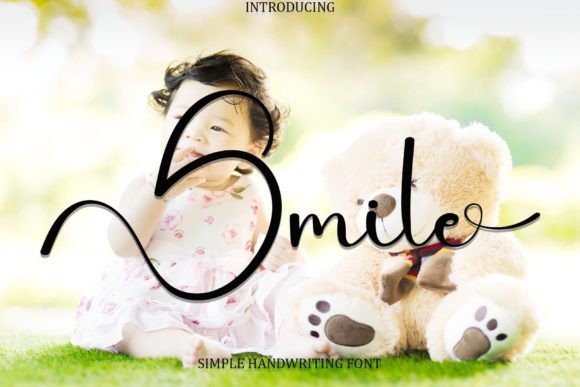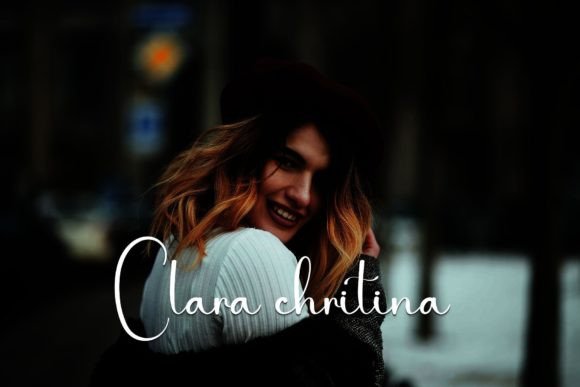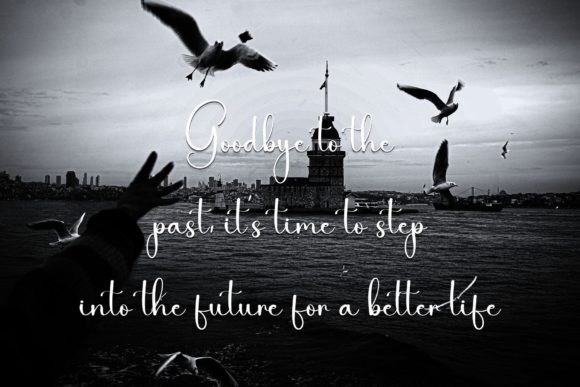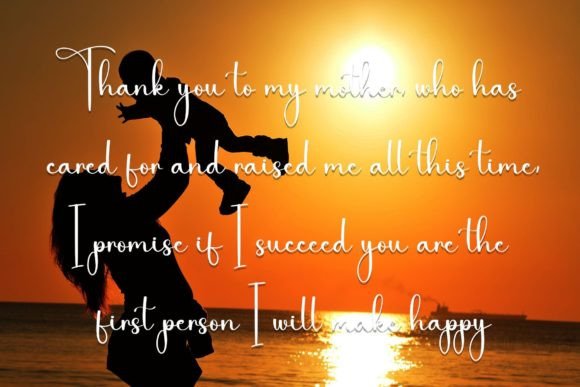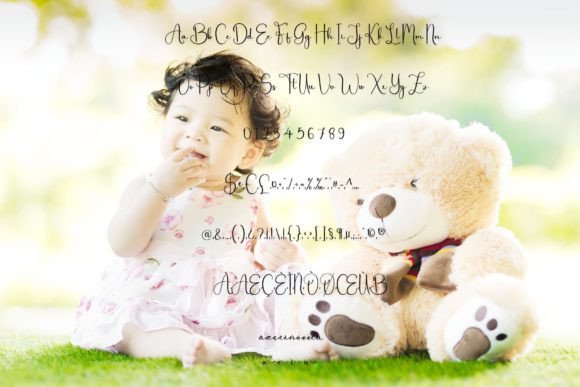
Smile Font
About Smile Font
Smile, a sweet and natural handwritten font, possesses a distinctive and charming style that seamlessly integrates into a wide array of designs. Its natural and unique characteristics make it an incredibly versatile choice, offering a plethora of creative possibilities with the only limit being your imagination.
The handwritten allure of Smile brings an authentic and personal touch to your designs, creating an inviting and warm atmosphere. This versatility allows the font to effortlessly transition between different design contexts, enhancing the visual appeal of your projects.
What sets Smile apart is its ability to transcend constraints, serving as a canvas for your boundless imagination. Whether you’re working on casual and friendly designs or more formal and sophisticated applications, this font acts as a flexible tool, allowing you to express creativity without limitations.
The charm of a handwritten font like Smile lies in its capacity to infuse authenticity and individuality into your projects. Beyond being merely a font, it becomes a design element that carries character and personality, ensuring your creations stand out with a natural and effortless beauty.
Exploring the creative possibilities with Smile reveals its seamless integration with various design elements. The free-flowing strokes and unique curves add a distinctive touch, capturing attention and injecting a dose of creativity into your visual communication.
In essence, Smile is not just a font; it’s an open invitation to unleash your imagination. Its sweet and natural handwritten style creates a delightful aesthetic that elevates the overall appeal of your designs, turning each project into a unique and expressive piece of art. Embrace the boundless potential that Smile offers and let your creativity soar without constraints.